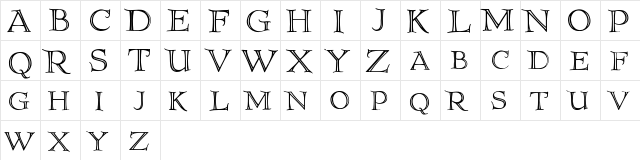
Priory Regular
Design Context for Priory Typeface
Priory takes a measured approach to typography — its balanced proportions and neutral character make it a reliable workhorse for both digital and print work.
Pro Tip: Use Priory in both headline and body roles to test its range before committing to a single application.